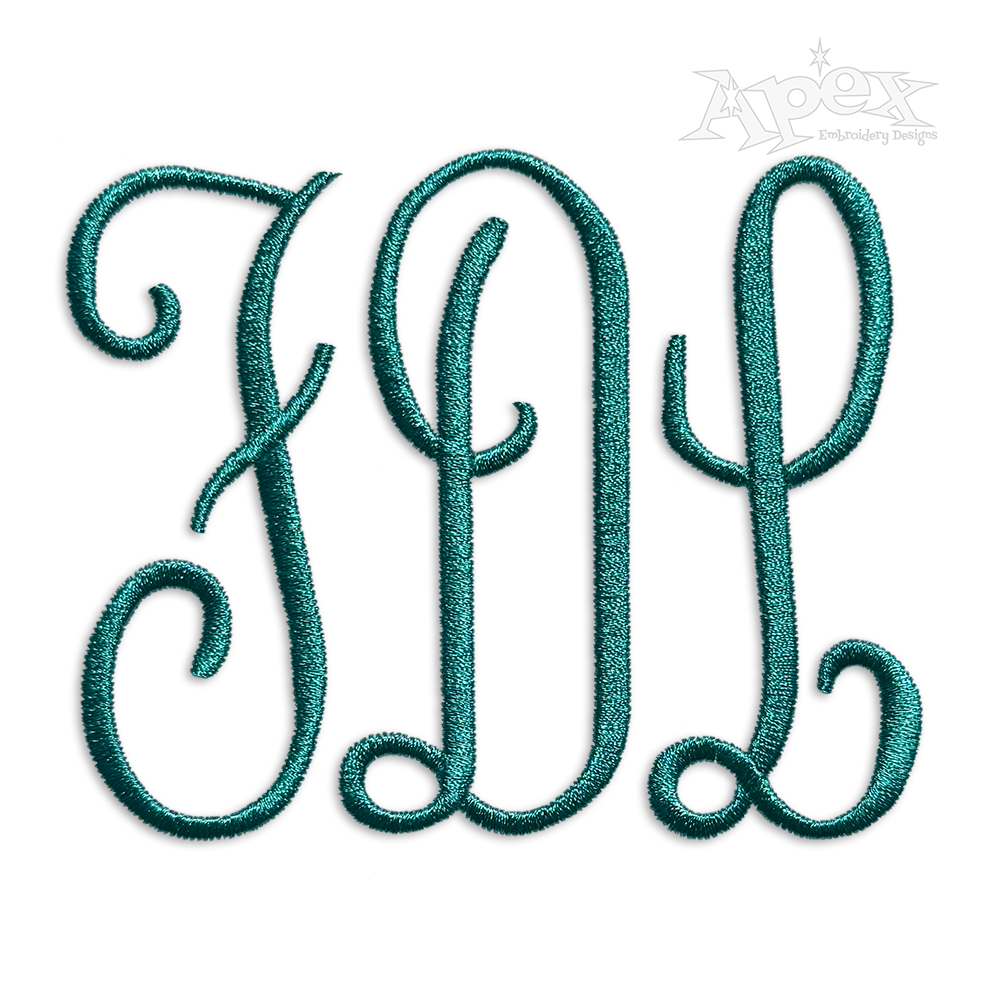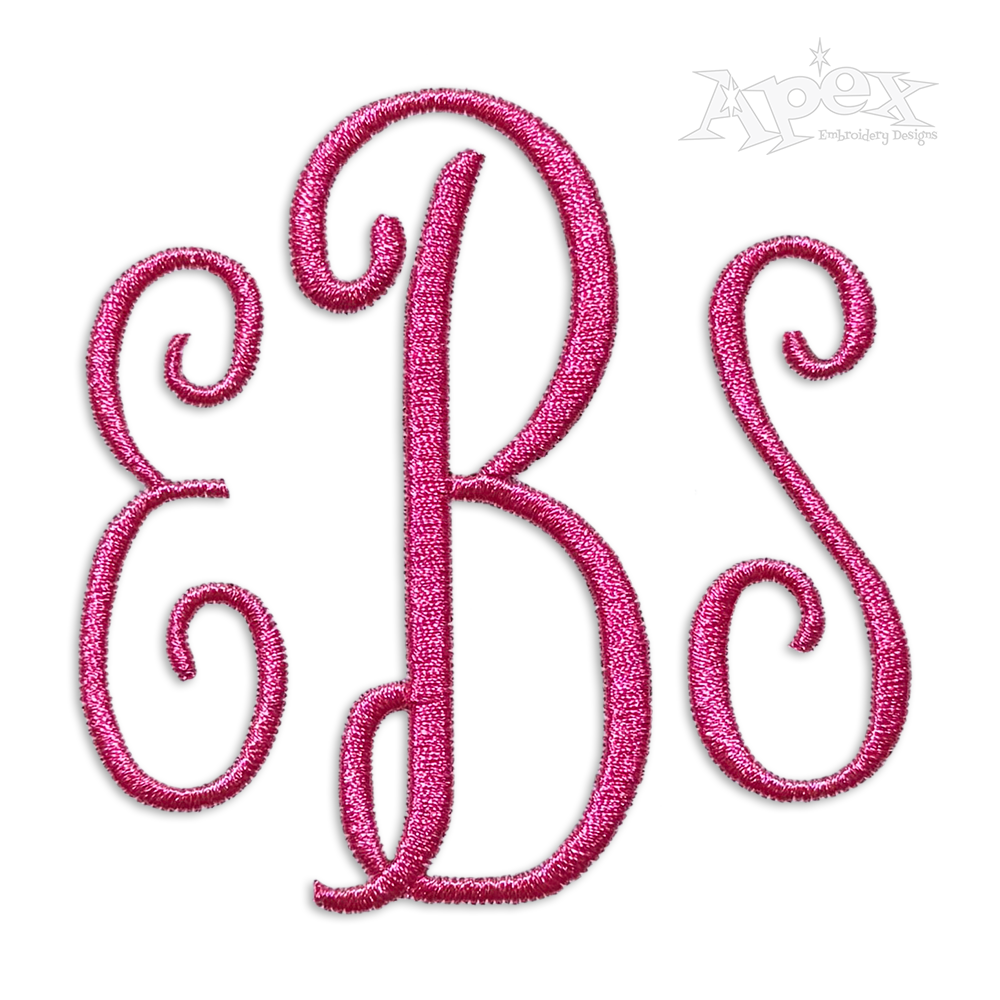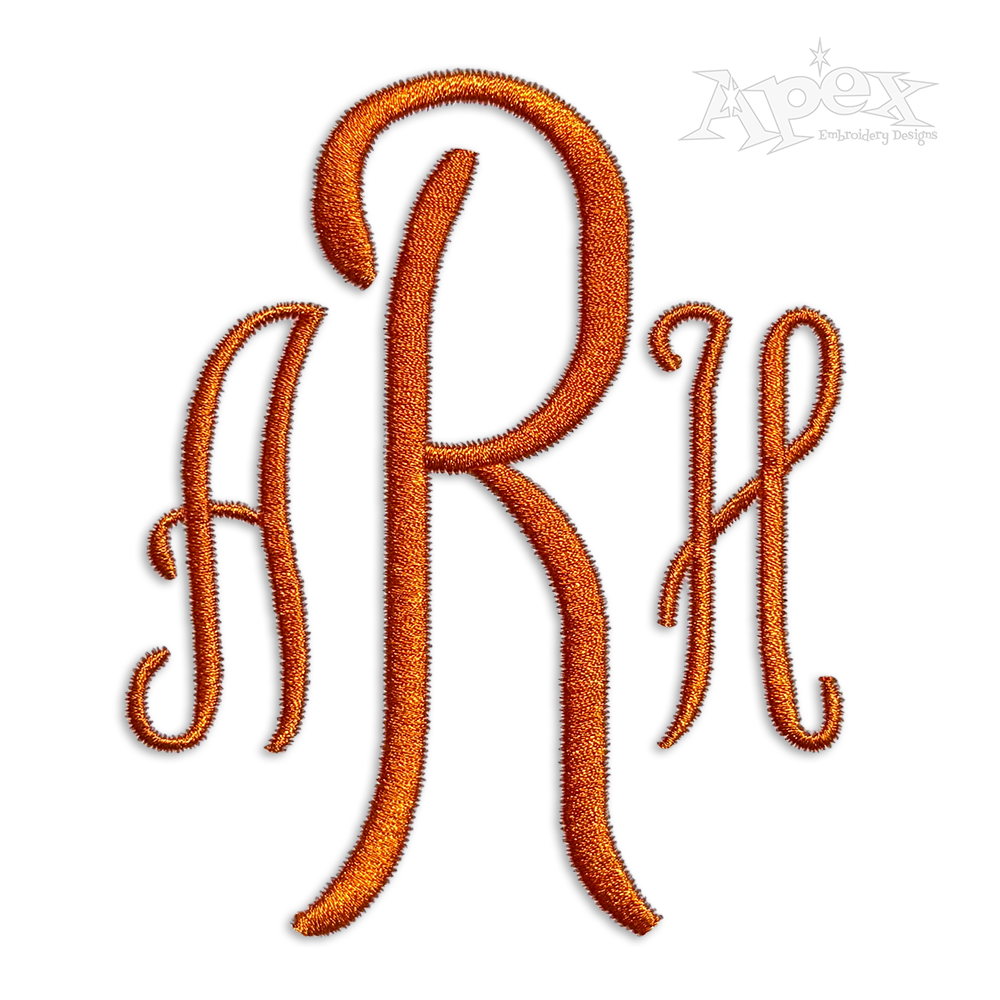
Meistergram Embroidery Fonts
Drawn from the golden age of boutique personalization, the Meistergram Monogram captures vintage haberdashery charm through a slender, elongated silhouette. There is an effortless, rhythmic whimsy in the way each character stretches tall and lean, punctuated by graceful loops and playfully curled terminal serifs. Digitizing this alphabet was an exercise in pure poise?translating delicate, pen-drawn swoops into pristine satin stitches that glide cleanly over fine textiles without overwhelming the weave. Whether creating a breezy three-letter monogram for resort wear or gracing heirloom linen with bespoke flair, Meistergram brings an airy, artisanal distinction that feels simultaneously nostalgic and refreshingly modern.
Digitized with meticulous stitch architecture across four graduated heights, this collection equips your embroidery machine for everything from diminutive cuff accents to bold linen centerpieces:
The distinctive skinny proportions and curly terminals of Meistergram make it exceptionally suited for projects where conventional block or heavy script monograms feel too rigid:
Due to the slender, vertical stance of the letterforms, Meistergram excels across a wide variety of canvas geometries:
Meistergram Embroidery Fonts Craft & Letterform Details
Digitizing a font with such delicate, elongated columns requires an uncompromising focus on stitch mechanics and density balancing. Because each stem is inherently slender, standard satin densities can easily pull or sink into soft knits and textured linens. To counter this, our digitizers individually mapped each stroke with specialized underlay foundations that lift the satin thread off the fabric grain, maintaining needle-sharp edge definition and rich optical luster.
The signature looped serifs and swooping curls receive dynamic stitch directioning. Rather than cutting harsh diagonal transitions, our paths curve organically around every spiral, allowing the embroidery thread to catch light smoothly across the entire arc. Push-pull compensation has been precisely tailored for all four sizes, ensuring that the crisp thin-line character remains perfectly uniform from the first entry stitch to the final tying knot.